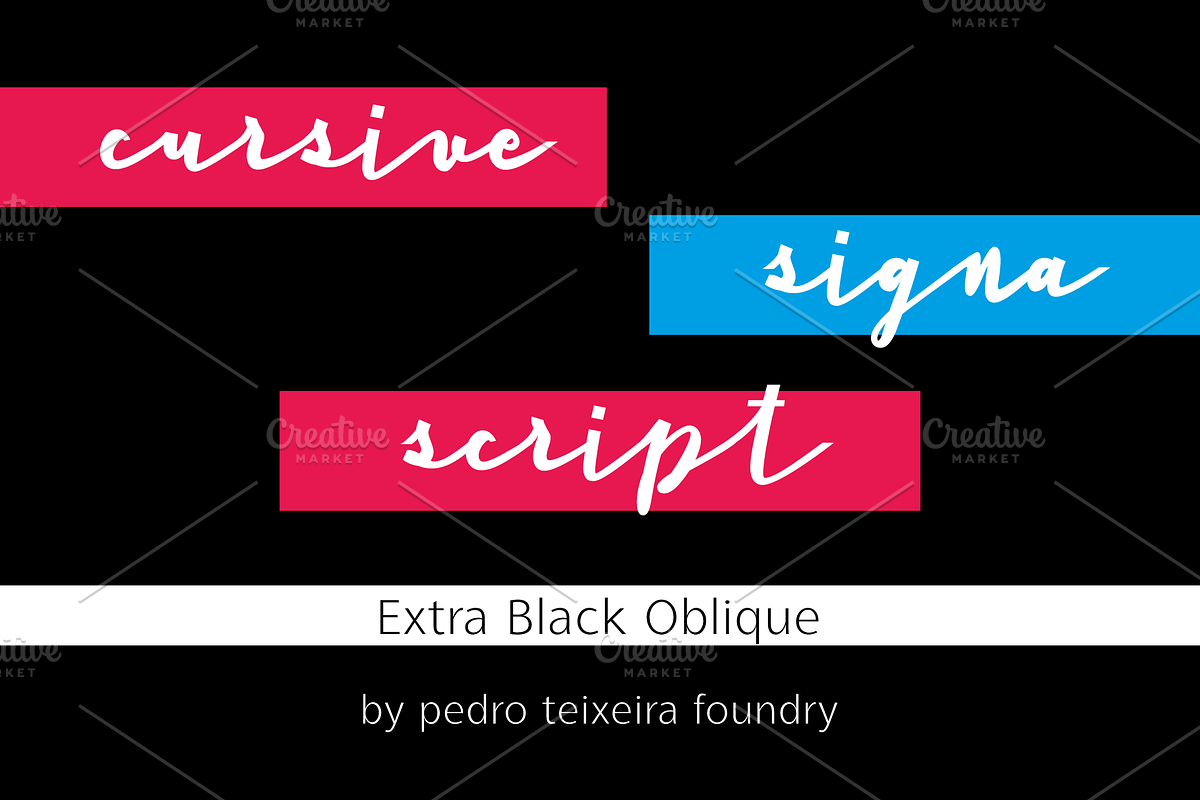
Cursive Signa Script Extra Black Obl
Part of one of the rare, huge script, true cursive and signature family. With alternates
It can be use in a lot of projects, like logos, end of a statement, pairing with a beautiful sans serif like Aleante, in a title, invites and so on.